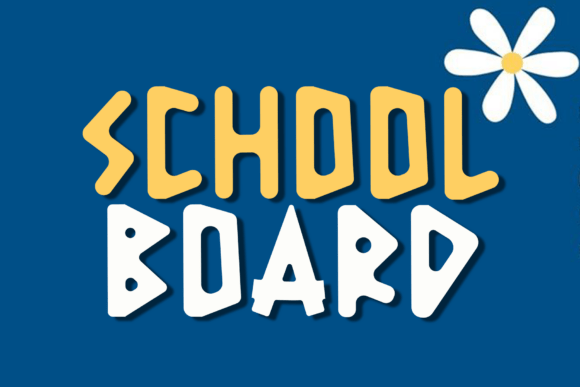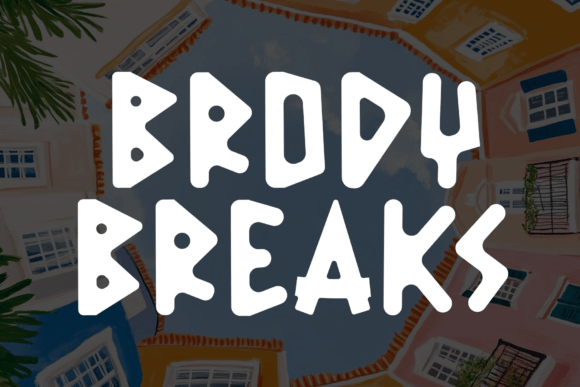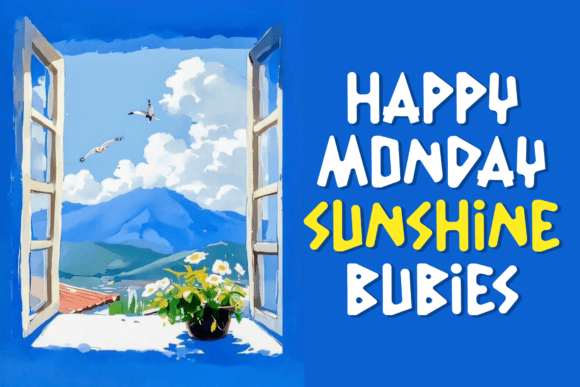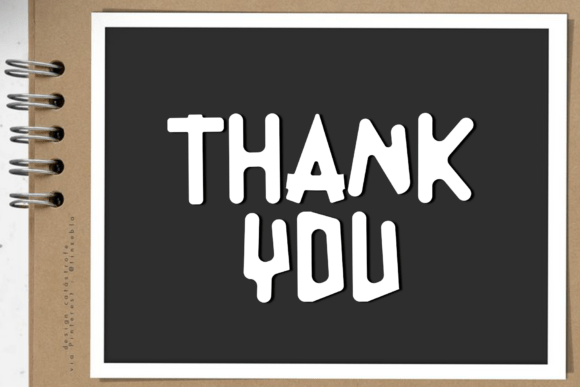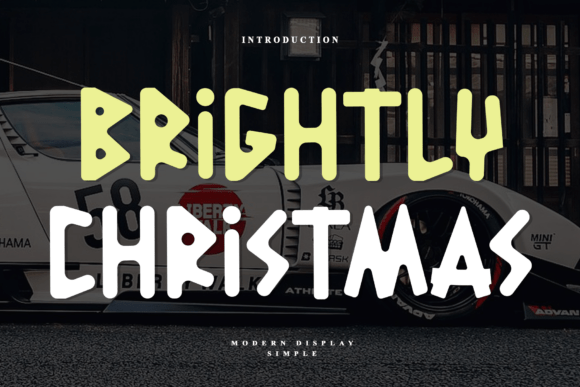
Unwrap the Magic of Brightly Christmas Font: A Modern Display Typeface for the Festive Season
The holiday season is upon us, and with it comes the need for designers and crafters to create eye-catching and festive visual content. If you’re looking for a font that embodies the playful and cheerful spirit of Christmas, look no further than the Brightly Christmas font. This modern display typeface is designed to bring a bold, playful energy to your holiday projects, and in this article, we’ll dive into its unique characteristics, uses, and benefits.
What is Brightly Christmas Font?
Brightly Christmas font is a modern display typeface that features chunky, rounded, and condensed block letters with a distinctly uneven, whimsical baseline. This unique design gives the font a fun, bouncy rhythm that’s sure to capture the attention of your audience. The exaggerated, almost hand-painted forms of the letters ensure high visibility, making it an excellent choice for a variety of holiday projects.
Key Characteristics of Brightly Christmas Font
So, what sets Brightly Christmas font apart from other festive fonts? Here are some of its key characteristics:
• Chunky and condensed letters: The font features thick, sturdy letters that are perfect for creating bold and eye-catching headlines.
• Rounded and playful edges: The rounded edges of the letters give the font a friendly and approachable feel.
• Uneven baseline: The whimsical baseline of the font adds a touch of playfulness and energy to the letters.
• High visibility: The exaggerated forms of the letters ensure that your message will be seen and remembered.
Uses for Brightly Christmas Font
Brightly Christmas font is a versatile typeface that can be used for a wide range of holiday projects, including:
• Holiday sales banners: Create eye-catching banners that will grab the attention of shoppers and drive sales.
• Playful Christmas apparel: Design fun and festive t-shirts, hoodies, and other apparel that will make your customers feel merry and bright.
• Fun seasonal posters: Create bold and colorful posters that will add a touch of holiday cheer to any room.
• Children’s holiday projects: Use Brightly Christmas font to create fun and engaging projects for kids, such as holiday cards, gift tags, and decorations.
• Branding and marketing materials: Add a touch of holiday cheer to your branding and marketing materials, such as logos, business cards, and social media graphics.
Benefits of Using Brightly Christmas Font
So, why choose Brightly Christmas font for your holiday projects? Here are some of its benefits:
• Modern and simple design: The font’s modern and simple design makes it easy to read and understand.
• Unreservedly cheerful: The font’s playful and cheerful design is sure to put a smile on your audience’s face.
• High visibility: The font’s exaggerated forms ensure that your message will be seen and remembered.
• Versatile: The font can be used for a wide range of holiday projects, from banners and posters to apparel and branding materials.
In conclusion, Brightly Christmas font is a modern display typeface that’s perfect for adding a touch of holiday cheer to your projects. Its unique characteristics, versatility, and benefits make it an excellent choice for designers and crafters looking to create eye-catching and festive visual content. So why wait? Unwrap the magic of Brightly Christmas font and make your holiday projects shine!
Whether you’re a designer, crafter, or simply someone who loves the holiday season, Brightly Christmas font is sure to bring a smile to your face. With its bold, playful energy and modern simple design, it’s the perfect way to add some festive flair to your projects. So go ahead, get creative, and make this holiday season one to remember!